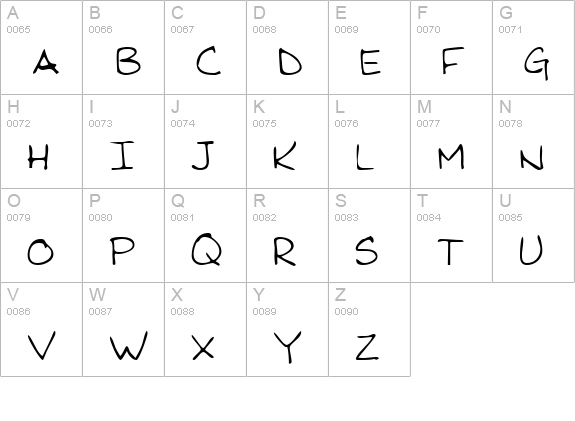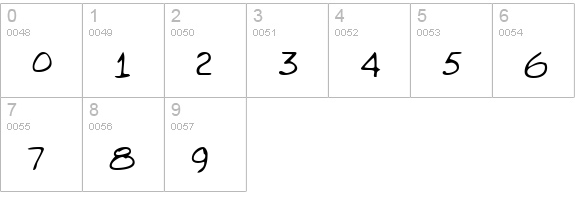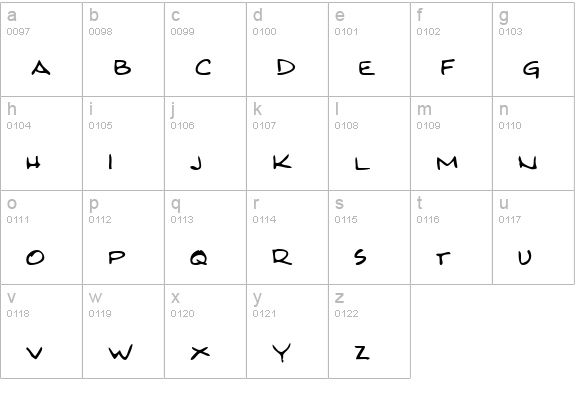
KirbysHand Regular is the standard, neutral variant in the KirbysHand typeface family \xE2\x80\x94 well suited to general body text, paragraphs, and standard typographic work.
KirbysHand Regular font is a charming and quirky typeface that adds a playful touch to any design project. With its whimsical strokes and hand-drawn feel, this font brings a sense of fun and creativity to your designs. Whether you're creating a children's book, a greeting card, or a poster for a lively event, KirbysHand Regular font is sure to capture attention and bring a smile to people's faces. What makes KirbysHand Regular font even more appealing is that it is freely available to download at FontsMarket.com. This means that you can easily access this delightful font without any cost or hassle. Whether you're a professional designer or a hobbyist, having access to high-quality and free fonts like KirbysHand Regular font is a fantastic resource that allows you to unleash your creativity without breaking the bank. So why wait? Download KirbysHand Regular font today from FontsMarket.com and let your imagination run wild. With its free availability and irresistible charm, this font is a must-have for anyone looking to bring a touch of whimsy to their designs. Embrace the playful spirit of KirbysHand Regular font and watch as your designs come to life with joy and creativity.